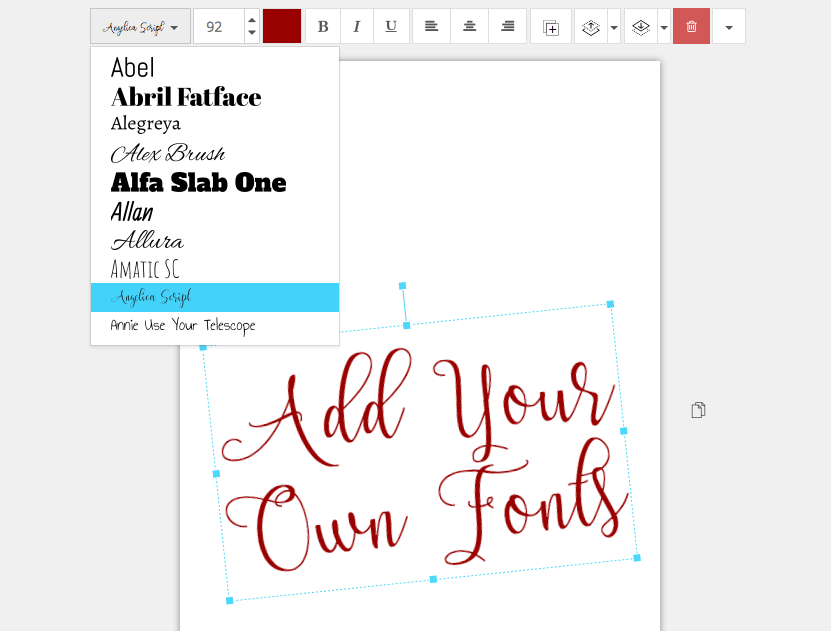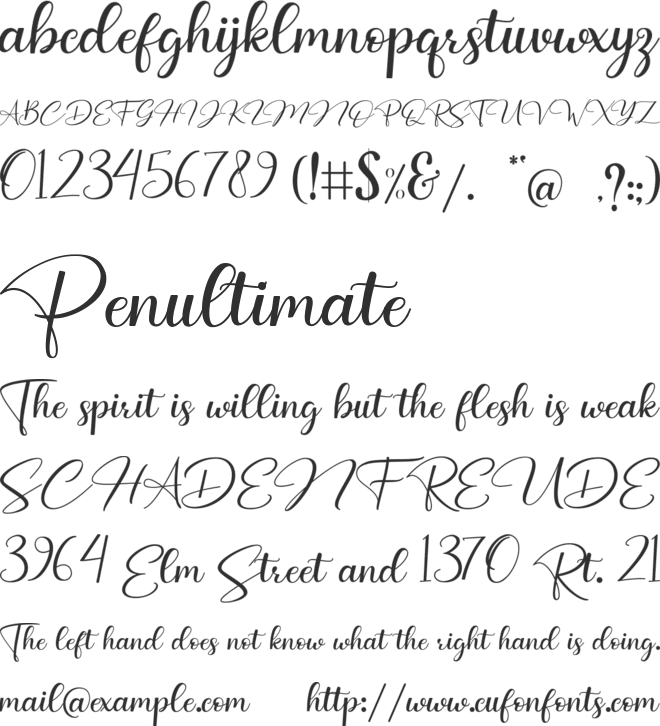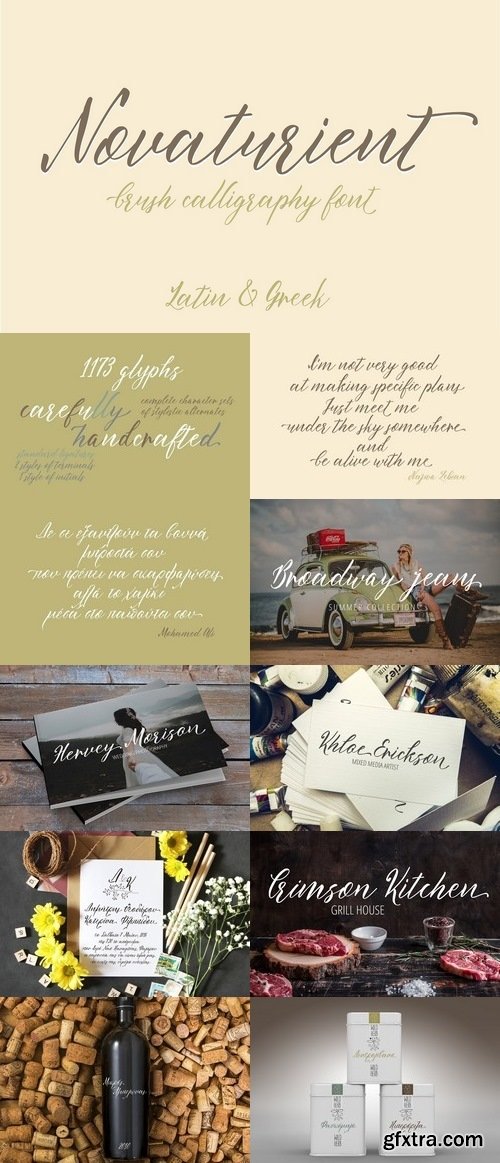
Free and Premium Quality Fonts - Best Premium FontsCalligraphy fonts are widely used in wedding event invitations original logo design religious art films tv etc. Our copy and paste fonts generator website is the worlds number one choice for generating stylish crazy and unique small fonts. All fonts are categorized and can be saved for quick reference and comparison.
Calligraphy font changer copy and paste. Cool fancy text generator font changer is a copy and paste font generator and font changer online that generates cool fonts for instagram and other social network sites. How copy and paste calligraphy generator works font changer can convert. It converts a normal text to different free cool fonts styles such as tattoo fonts calligraphy fonts web script fonts cursive fonts handwriting fonts. Click to learn more about how to use our free font and text changer online.
Text with special computer letters and symbols kind of like emoji. If one looks at the history of this font one finds out that it was perhaps the romans who made this font widely available to the masses. Copy and paste your custom fonts today for free. The word calligraphy is essentially a greek word which translates into beautiful writing.
Why use a copy and paste fonts website. Burgues script created by alejandro paul is a typical font family of calligraphy style. Its the future people. Looking for a font generator.
Click a copy button. Calligraphy text generator copy paste. Calligraphy fonts resemble elegant handwriting. You cant copy and paste some comic sans into your instagram bio because the symbols the youd be copying would just be normal ascii characters and the fact that theyre rendered in one font on one website doesnt mean that theyll appear as that same font on another its up to the website owner to decide what fonts they use on their website.
Different text styles resulting from the generator can include unique cursive calligraphy handwriting and web script fonts. Paste it as plain text. They often look as if they were drawn with flat tipped pens or brushes. As youve probably noticed by now this translator lets you change your font using unicode symbols.